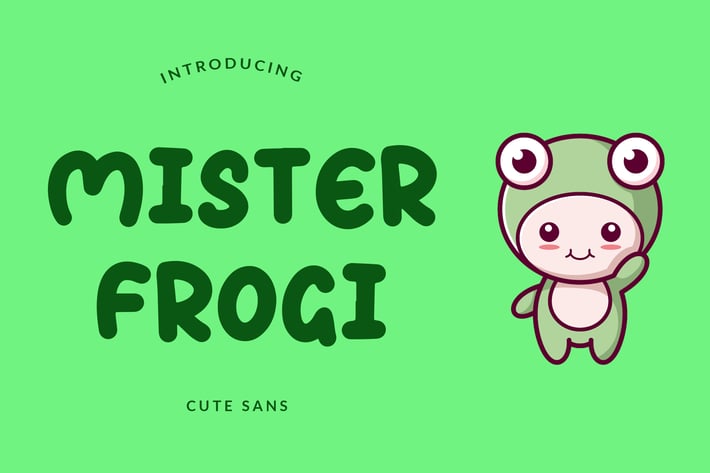
Mister Frogi Display Font
Mister Frogi is an exciting and extraordinary display font that will make any kid-themed design stand out!
Mister Frogi is perfect for branding projects, logo, tshirt designs, book cover design, social media posts, advertisements, product packaging, product designs, label, watermark, invitation, stationery and any projects.